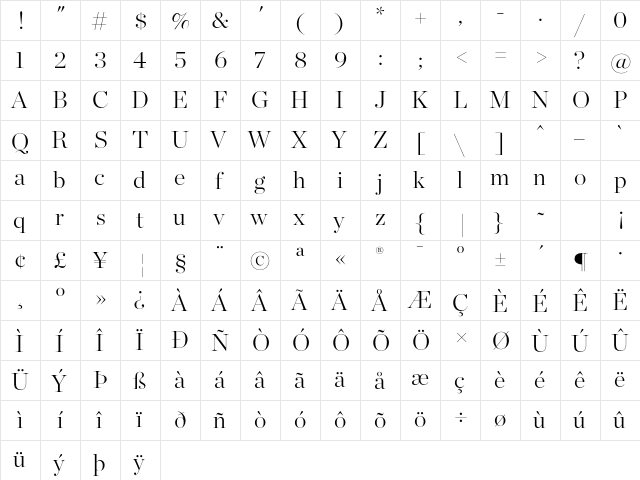
Chronicle Display Extra Light
| Foundry | Hoefler & Frere-Jones |
| Designer | Hoefler & Frere-Jones |
Design Context for Chronicle Display Typeface
Chronicle Display is built around its visual character rather than neutral utility — its distinctive forms are designed to make an impression at display sizes. Its slender proportions lend an understated elegance to any composition.
Font Pairing: Pair with a clean neutral sans-serif for body copy to let Chronicle Display's character lead without overwhelming the composition.
Pro Tip: Use Chronicle Display exclusively at display sizes — it was designed to be seen, not read at length. Let a neutral companion handle body copy.